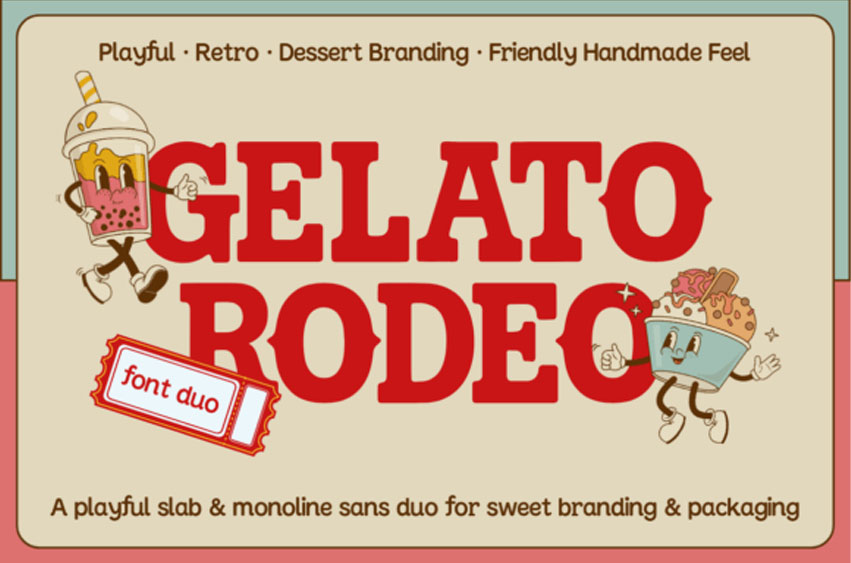
Gelato Rodeo Font is an animated slab serif and monoline font pair, bursting with a contagious sense of fun evocative of dessert parlors, vintage signs, and high-spirited branding activities. The Gelato Rodeo set pairs a hearty and robust slab serif display with a silky monoline sans-serif for that enchanting blend of amusement, exuberance, and unique personality.
Ideal for ice-cream advertising, children’s programs, pastel logos, or anything needing an uplifting injection of joy, Gelato Rodeo brings your design visions to life with a burst of visual delight in every stroke.
In the package, you’ll find Gelato Rodeo Display, an unmistakably bold slab serif distinguished by its unique triangle-shaped serifs and quirky proportions. There’s also Gelato Rodeo Text, a refined monoline sans-serif sporting rounded terminals and an inviting aura.
Gelato Rodeo is perfect for sweetening dessert and food packaging designs, enlivening children’s book narratives, sprinkling fun to event invites, or adding a retro mood to online posts. It also effortlessly creates playful editorial layouts, Pinterest pins, and YouTube covers, among countless other typographical applications.